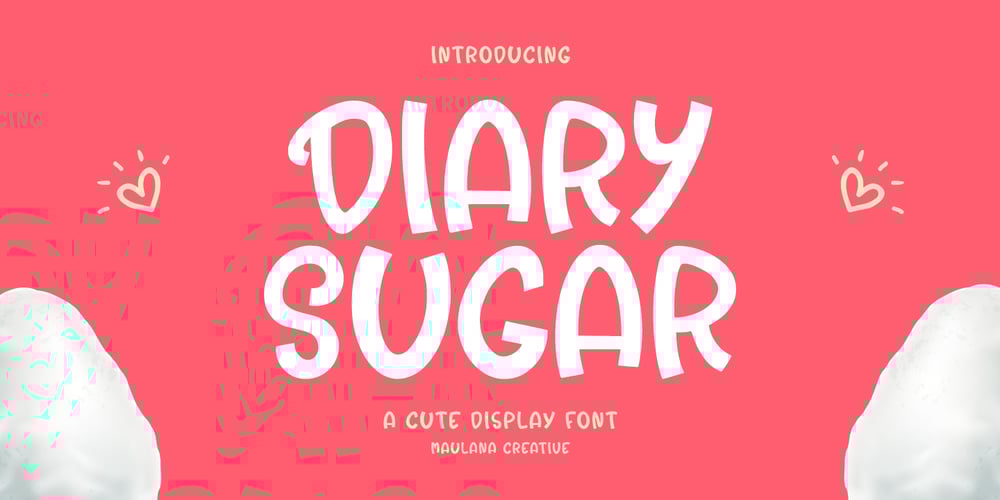
Diary Sugar Font Family was designed by Gilang Maulana and published by Maulana Creative. Diary Sugar contains 1 styles and family package options. Diary Sugar Cute Display Font. Bold stroke, fun character with a bit of ligatures and alternates. To give you an extra creative work. Diary Sugar font support multilingual more than 100+ language. This font is good for logo design, Social media, Movie Titles, Books Titles, a short text even a long text letter and good for your secondary text font with script or serif. Make a stunning work with Diary Sugar.Cheers,Maulana Creative